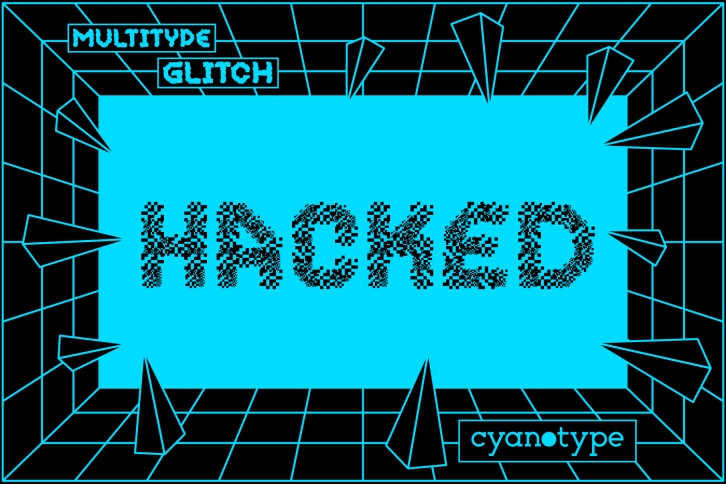
MultiType Glitch Hacked is a cool, uniquely shaped, pixelated display font. Add a distorted and trendy touch to your designs with this unusual pixel font! MultiType Glitch Hacked is PUA encoded which means you can access all glyphs and swashes with ease!